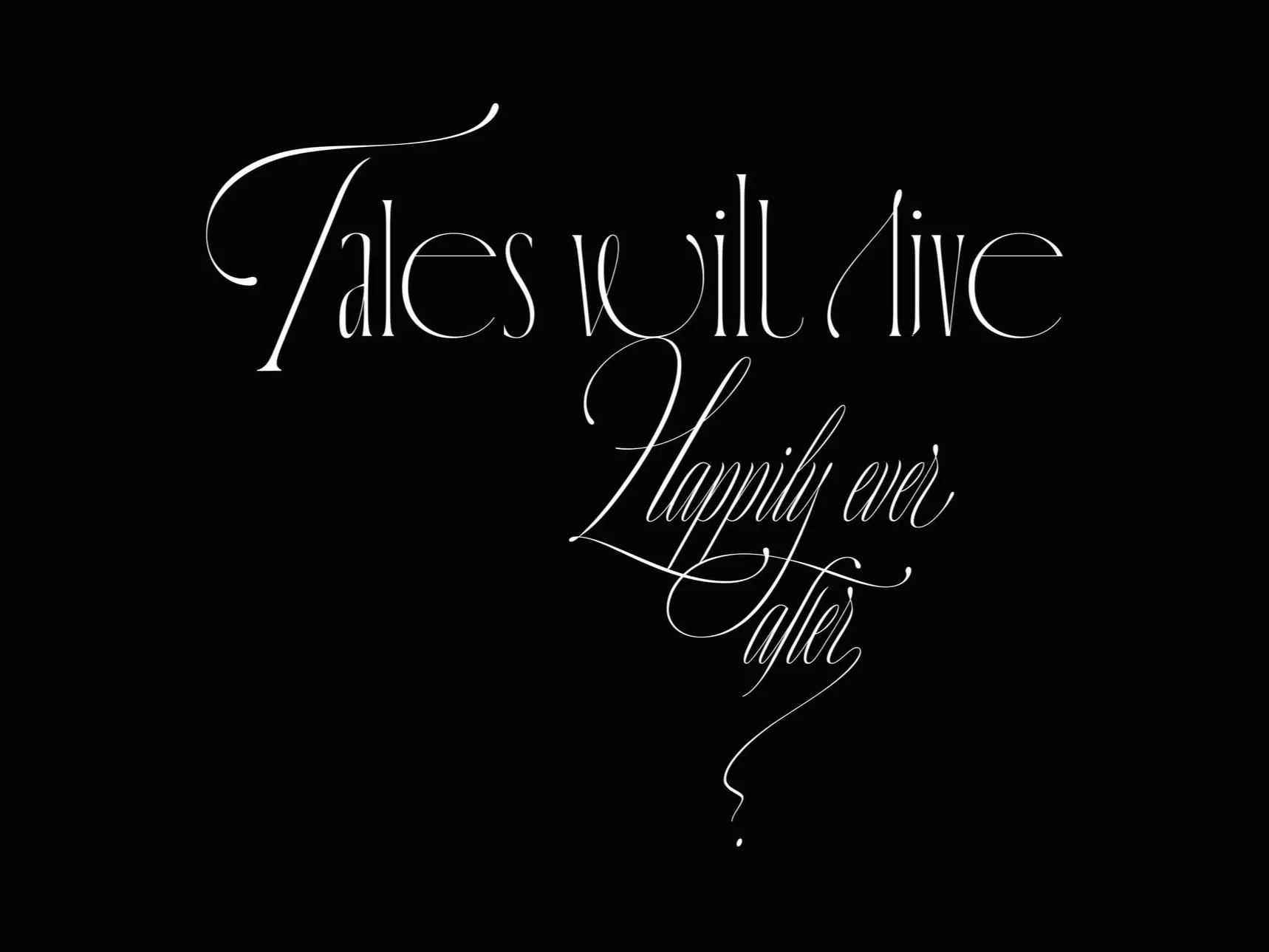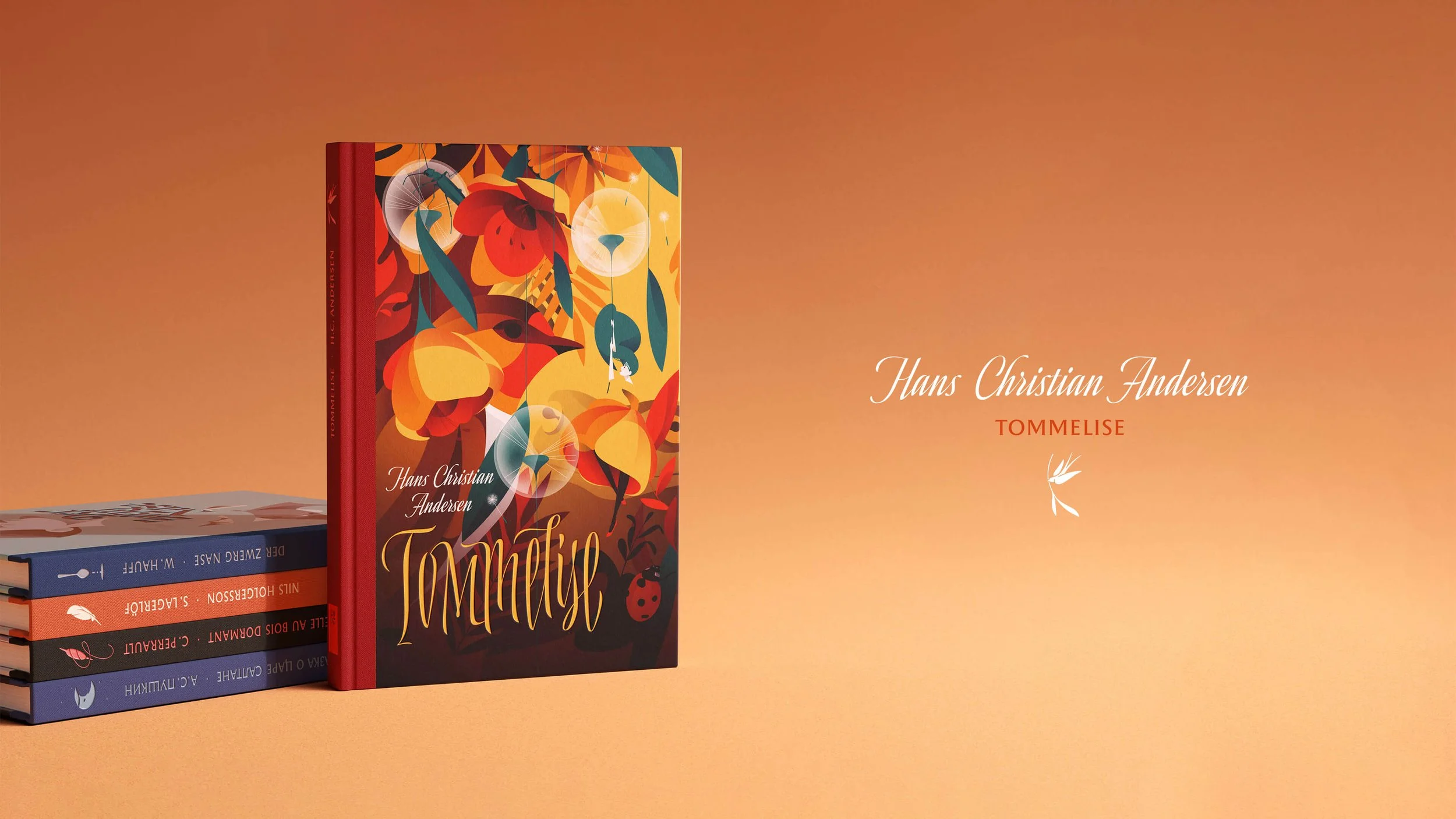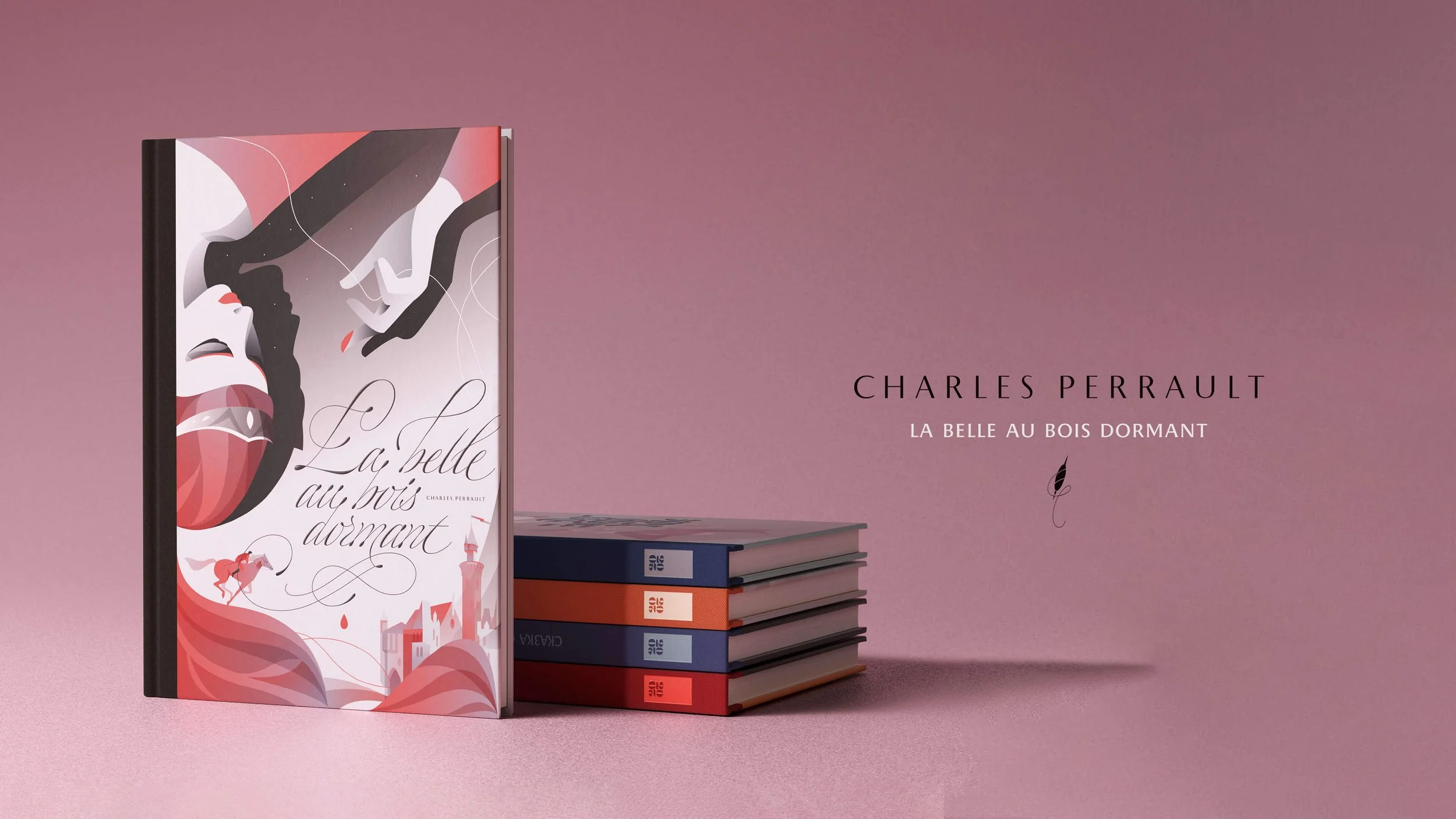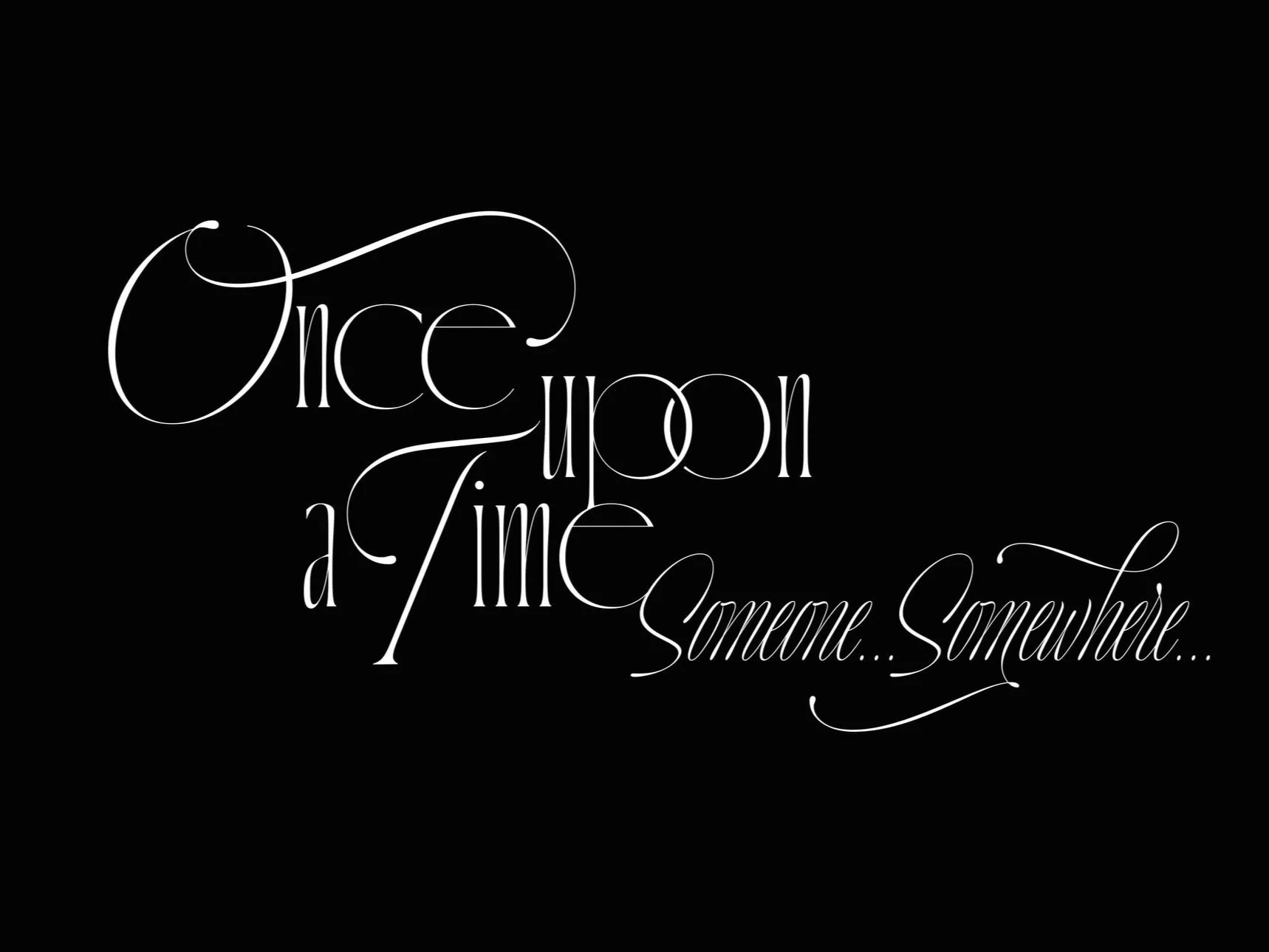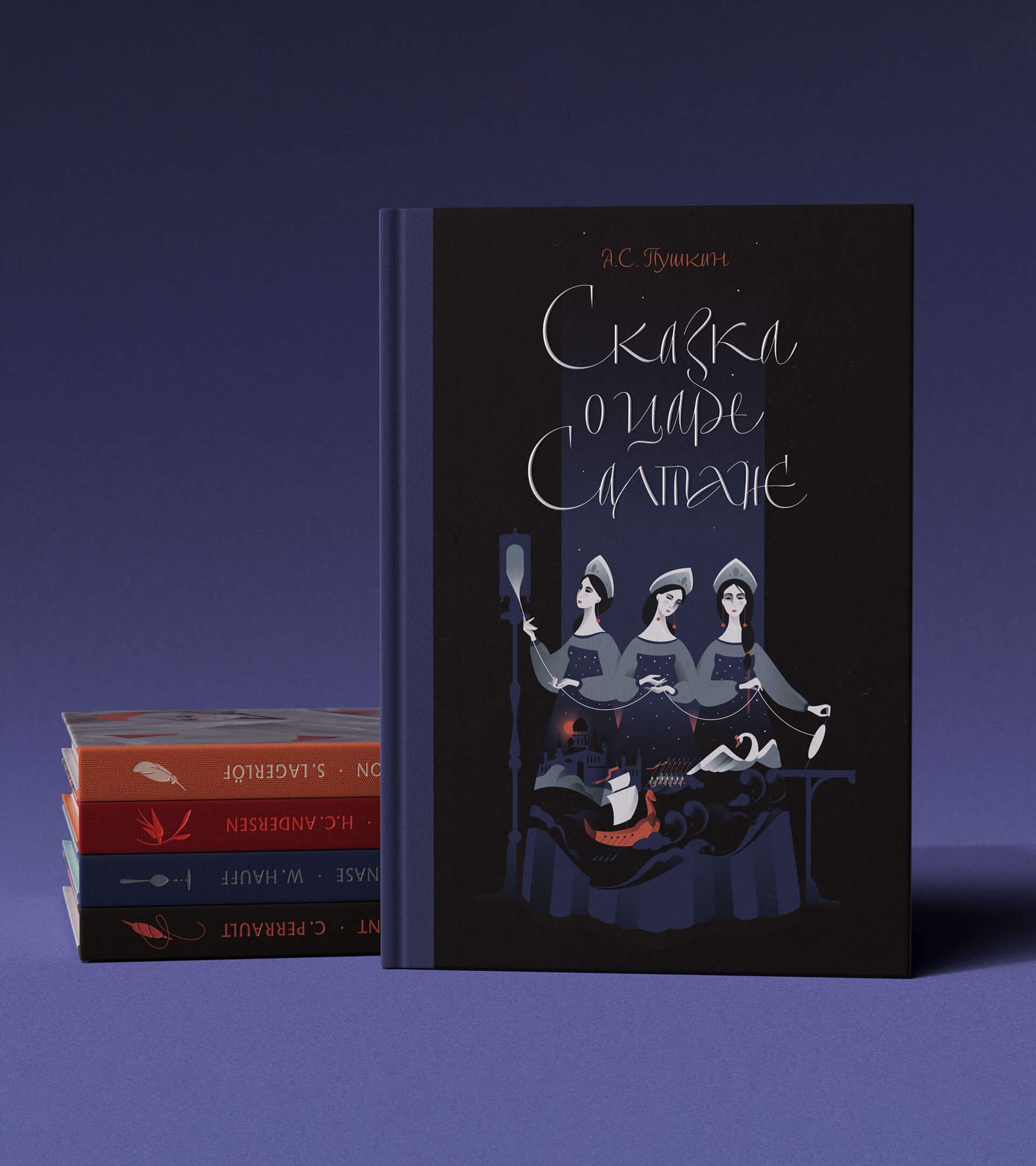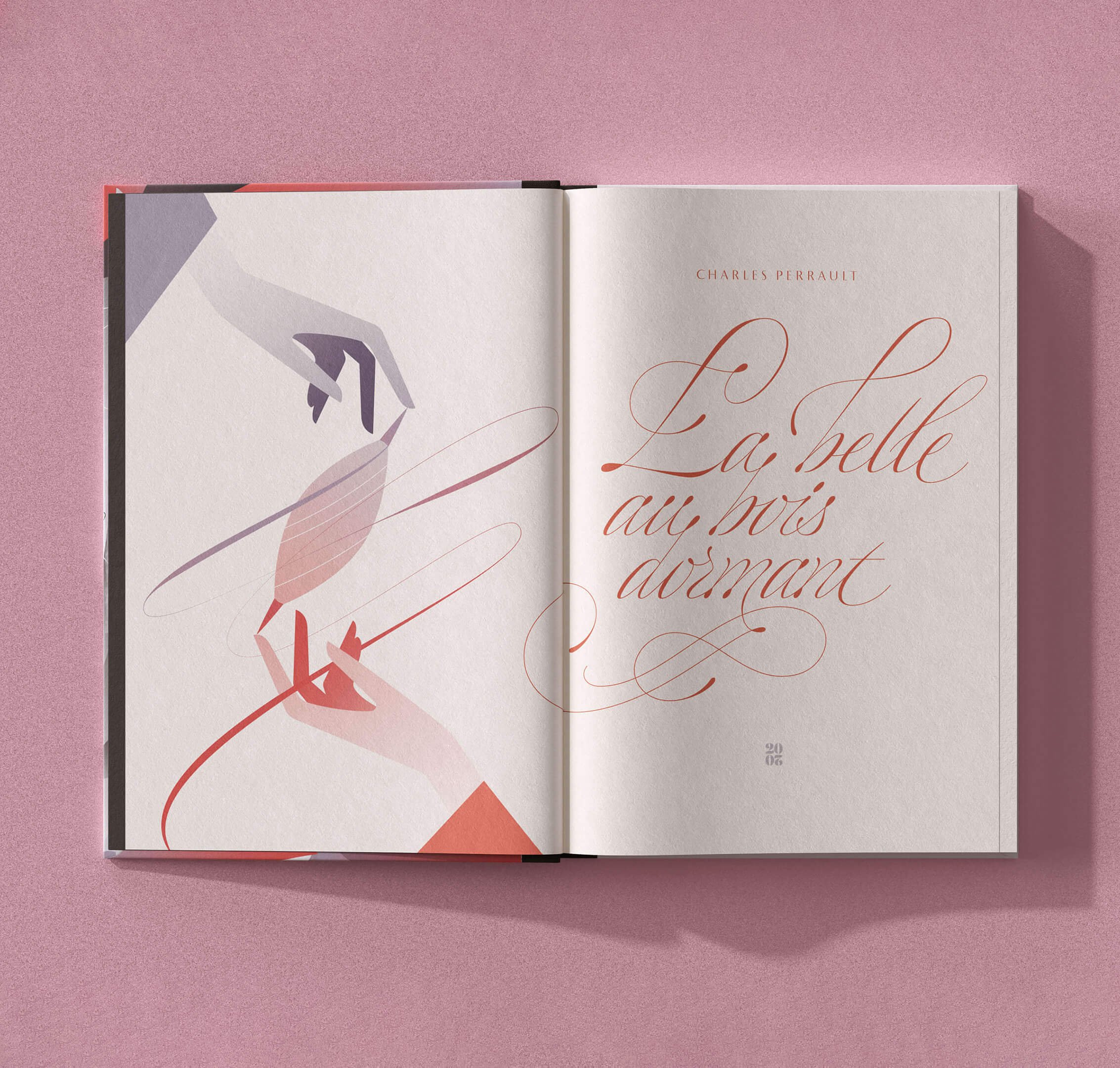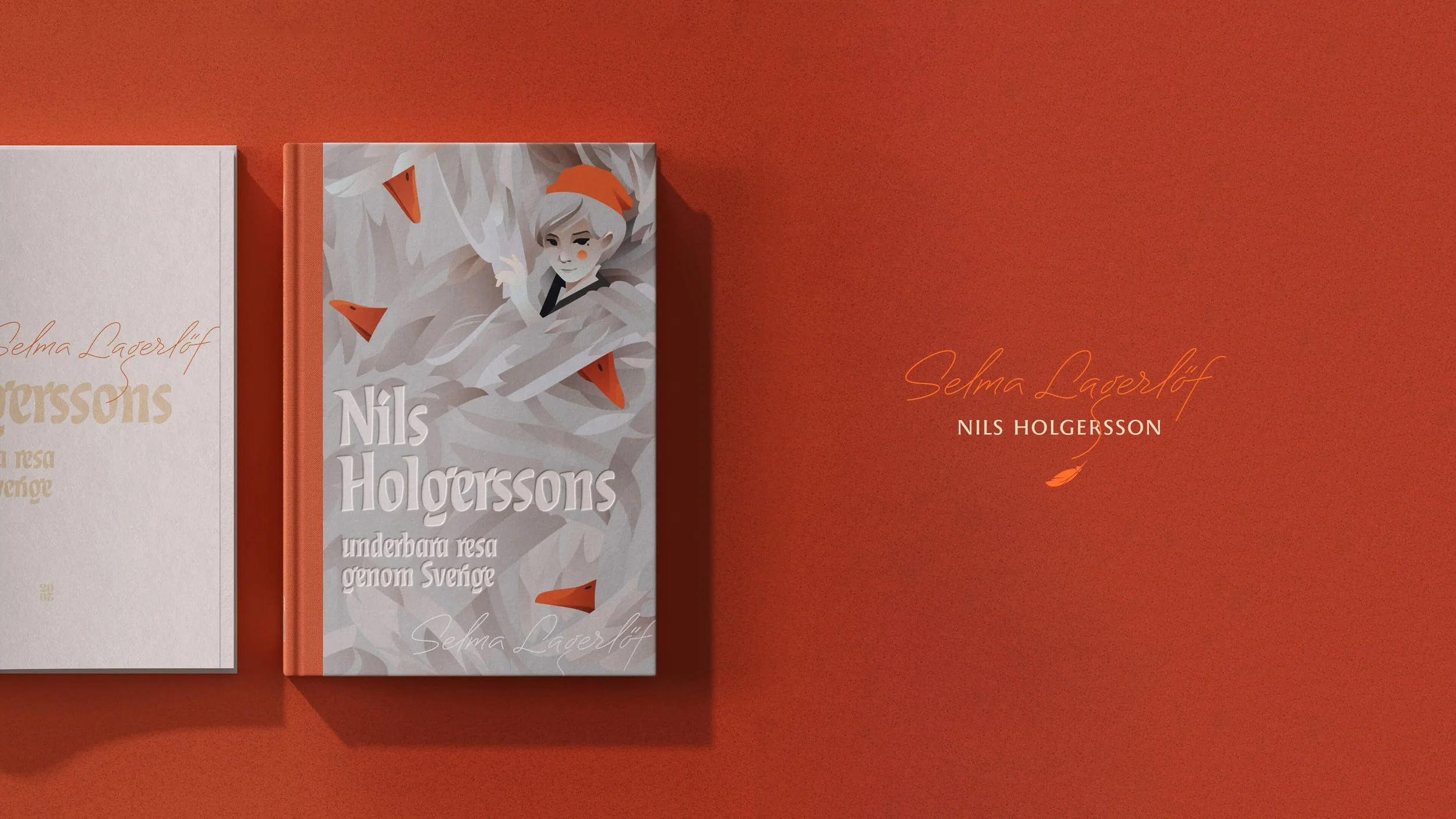
Once Upon A Time
“Once upon a time…” is a new look on old fairytales that we all know and love since childhood.
In the project of Maria and Olga pictures and lettering organically complement each other, made in a single style but express the unique sound of each story.
Every letter was drawn by hand, from the title lettering to the letters on the book spine.